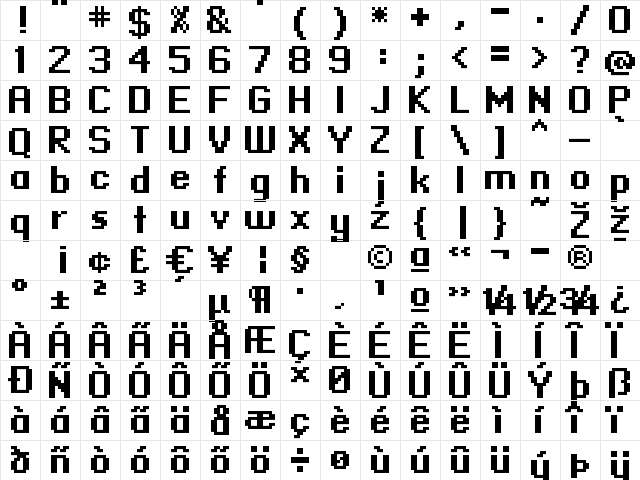
standard 09_66 Regular
| Designer | Craig Kroeger |
Design Context for standard 09_66 Typeface
standard 09_66 is a composed and adaptable typeface that performs quietly and consistently across a wide range of design contexts.